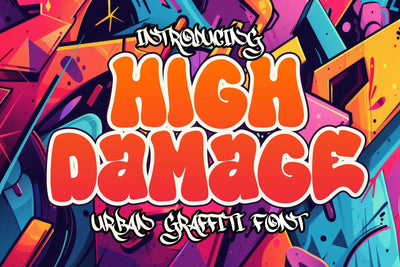
High Damage - Urban Graffiti Font
High Damage is a layered graffiti font that consists of solid and outline characters. This font is perfect for adding depth and dimension to your designs, making them pop with a 3D effect. Ideal for streetwear, posters, album covers, and any urban-themed project, High Damage brings an authentic graffiti style to your creative work.
- 3d Layer Graffiti